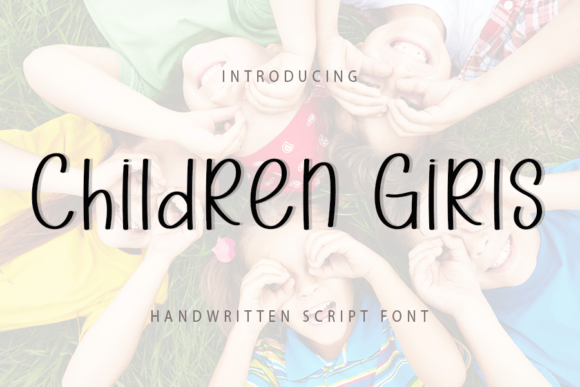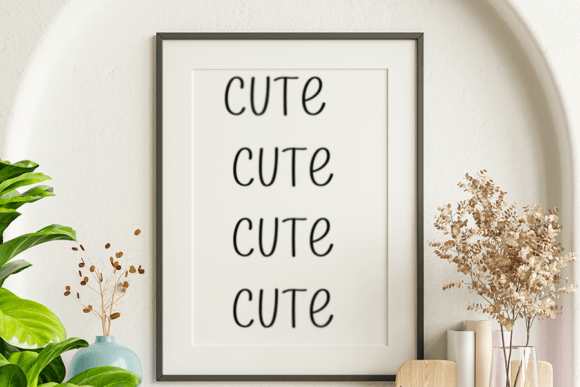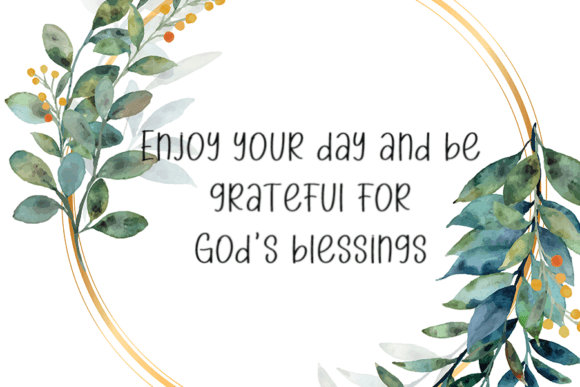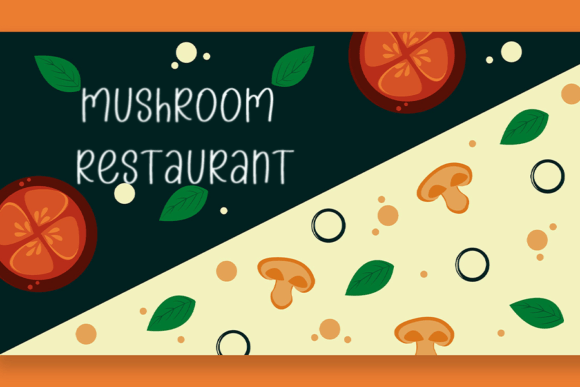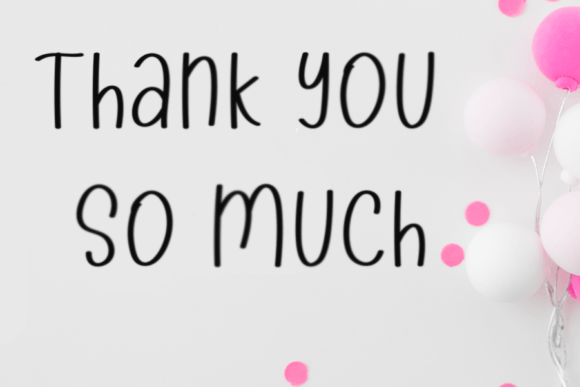
Children Girls Font
About Children Girls Font
Children Girls Font is a neat and beautiful handwritten script designed with an elegant touch. With flowing strokes and graceful curves, this typeface blends timeless style with modern versatility. Because of its polished form, Children Girls Font is perfect for branding, invitations, stationery, and digital designs that need personality.
An Elegant Handwritten Typeface
Handwritten fonts are loved for their natural charm, and this one enhances that tradition with refined strokes. Its structure feels delicate yet remains highly readable. Moreover, it adapts well to different creative themes, from formal wedding stationery to casual greeting cards. As a result, Children Girls Font provides designers with flexibility and elegance in one package.
Invitations and cards gain beauty and sophistication when created with Children Girls Font. For example, it can turn wedding stationery into elegant keepsakes. In addition, it works well for thank-you notes, birthday cards, and seasonal greetings. Because of its timeless curves, every project feels heartfelt and memorable.
A Script Typeface for Logos and Branding
Businesses and creative professionals can rely on this handwritten script to build polished brand identities. Logos, product packaging, and business cards stand out with a handcrafted look. Furthermore, on social media, Children Girls Font helps posts, stories, and banners capture attention with style. When paired with minimalist sans serif fonts, it balances elegance and readability.
Flexible Across Print and Digital Projects
One of the strengths of Children Girls Font is its adaptability across different mediums. In print, it enhances magazines, posters, brochures, and merchandise. Digitally, it improves websites, blogs, and presentation slides. Since it scales well in both large and small sizes, it maintains clarity and style across platforms, making it a reliable choice for diverse projects.